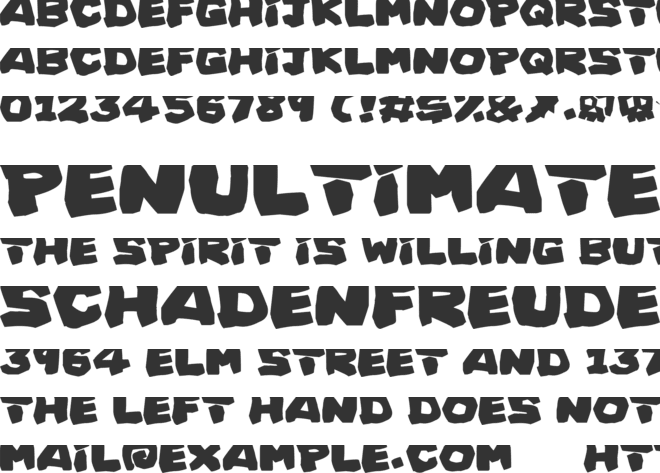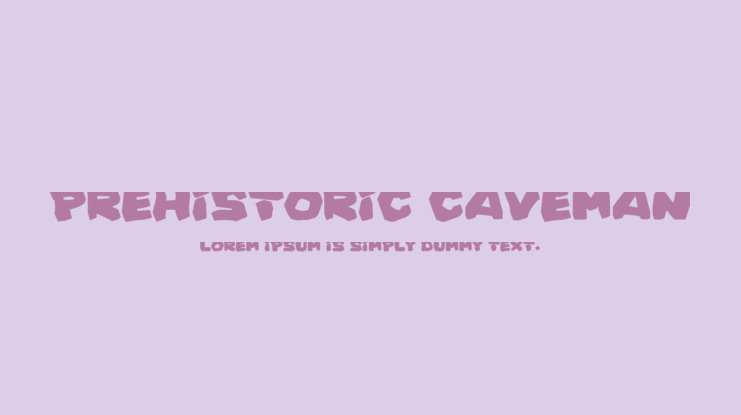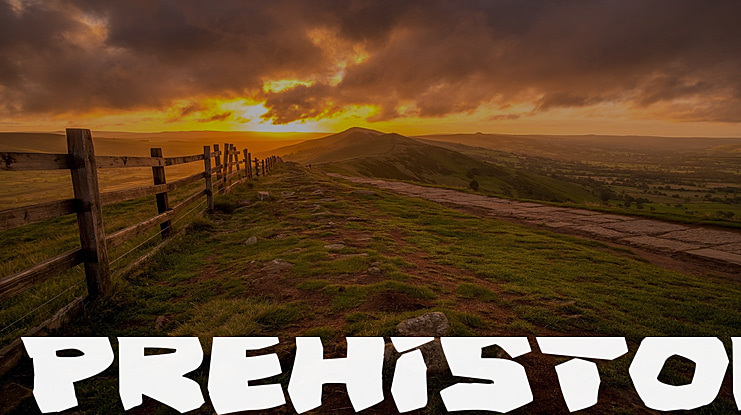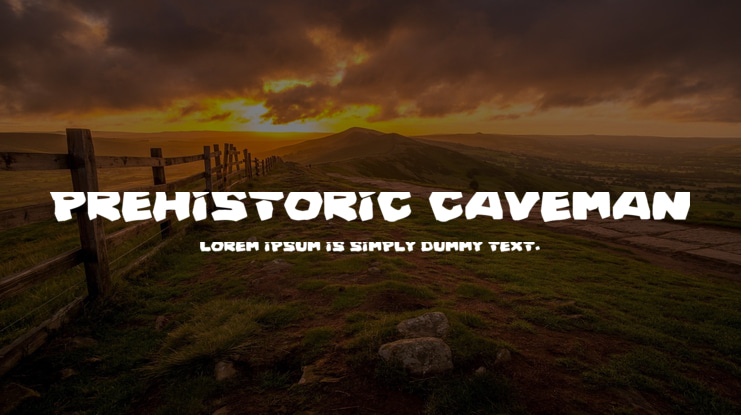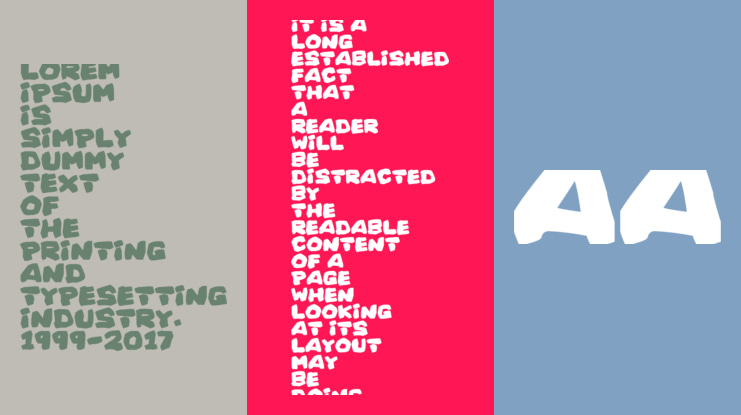
Prehistoric Caveman Font
"Prehistoric Caveman", created using High Logic Scanahand by Darrell Flood, is free to use for personal use. (Tho I still appreciate any donations you might be inclined to give regardless!)
*Note: Some characters are decorative bones & skulls.